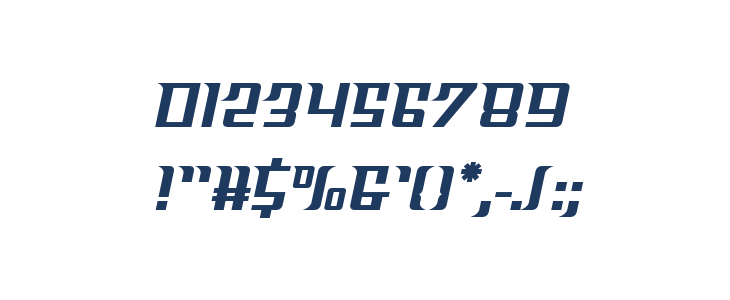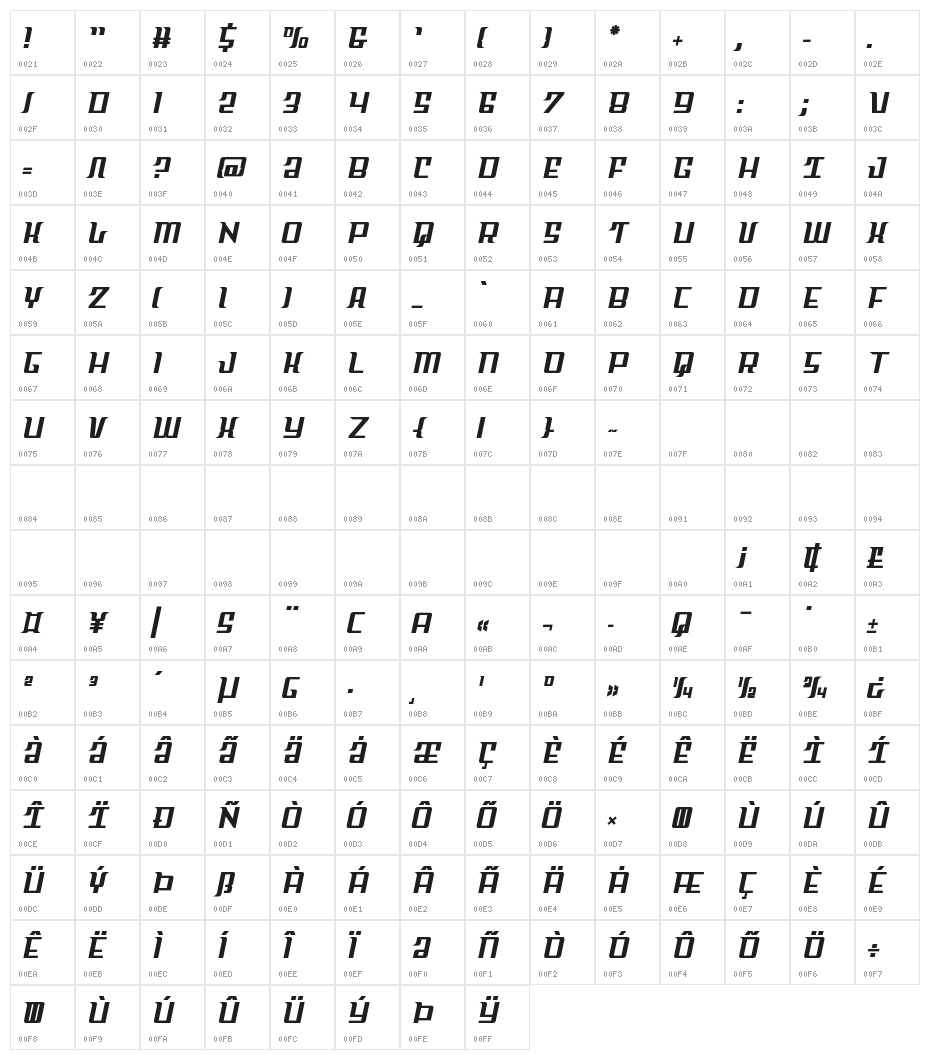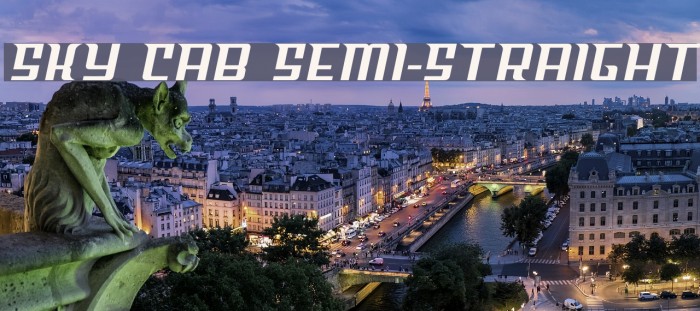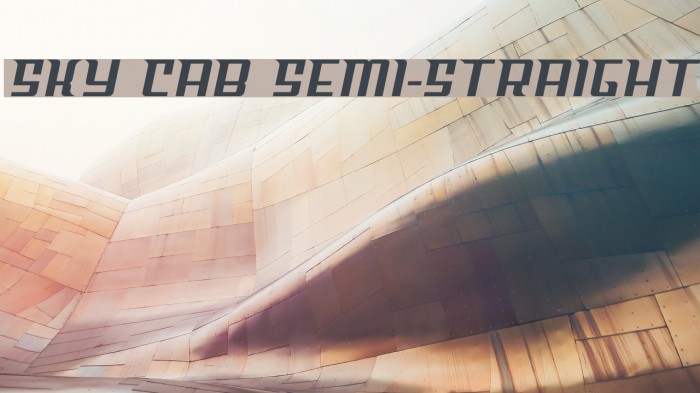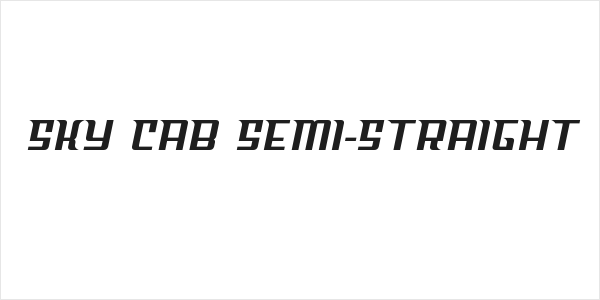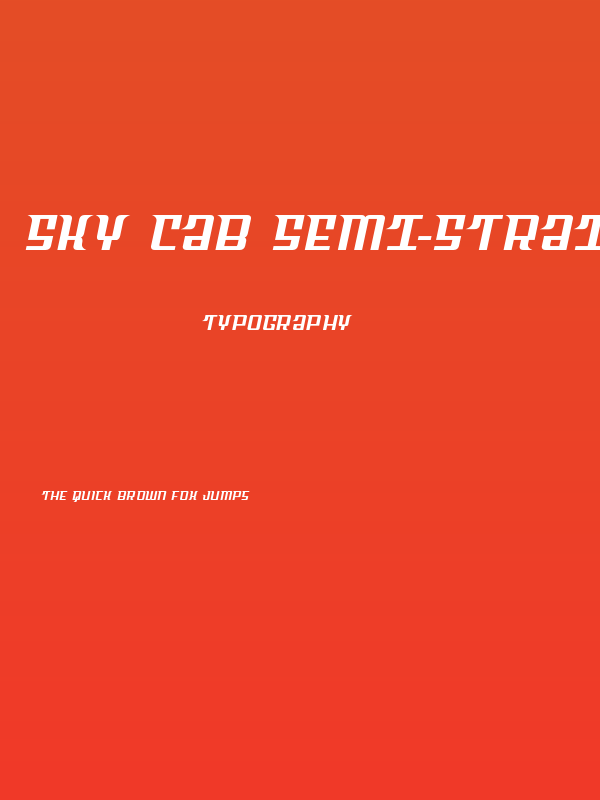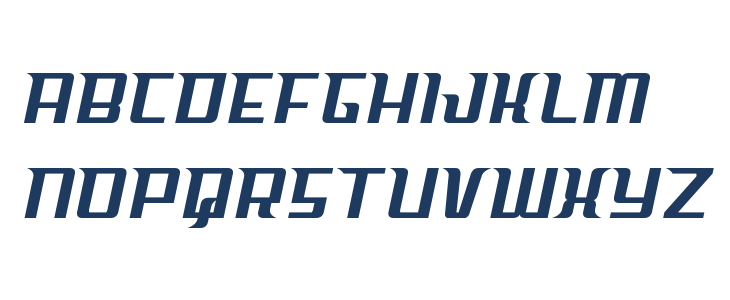
Sky Cab Semi-Straight Font
Sky Cab Semi-Straight Description
This font features a bold and dynamic design with angular, geometric shapes that give it a futuristic and sporty appearance. The characters are slightly slanted, adding a sense of motion and speed. The strokes are thick and consistent, providing a strong visual impact. The uppercase and lowercase letters maintain a uniform style, with sharp edges and a mechanical feel. The numerals and special characters follow the same design principles, ensuring a cohesive look across all elements. This font is ideal for projects that require a modern and energetic aesthetic.